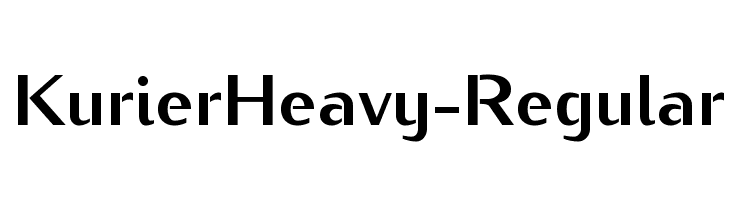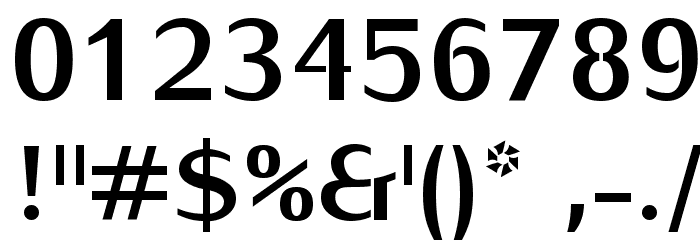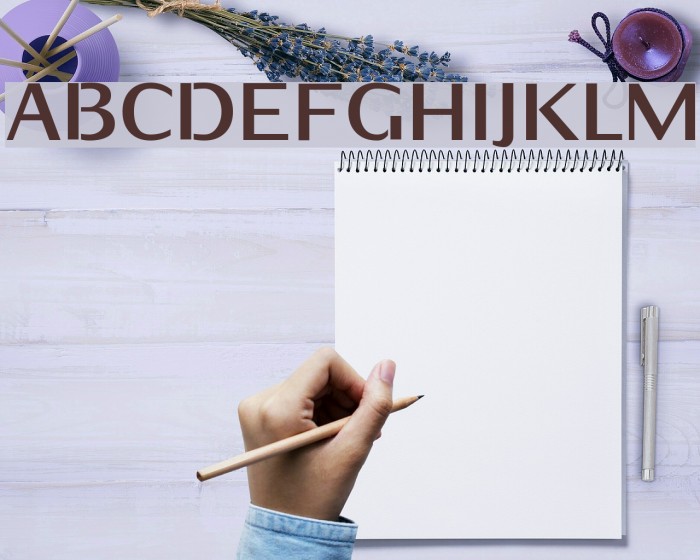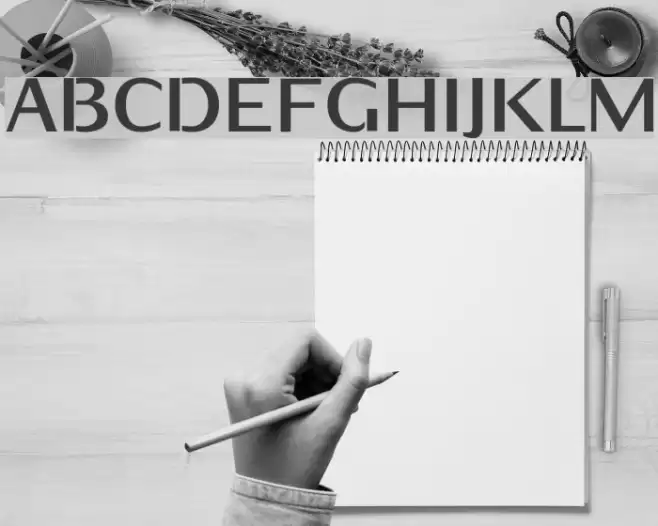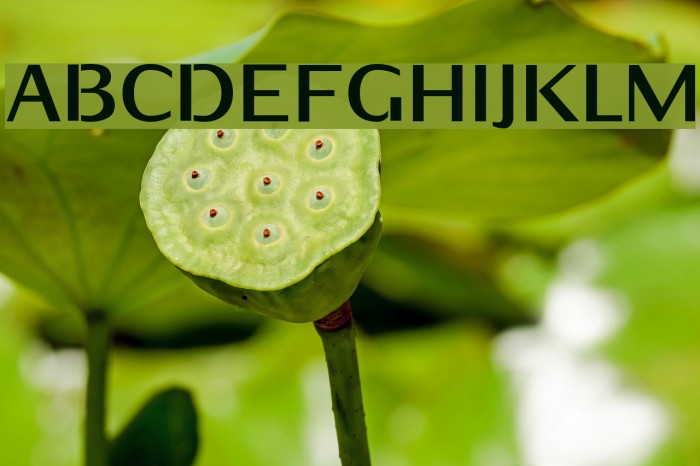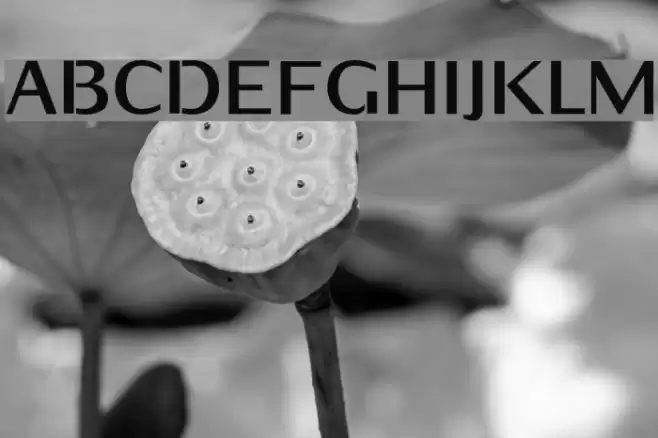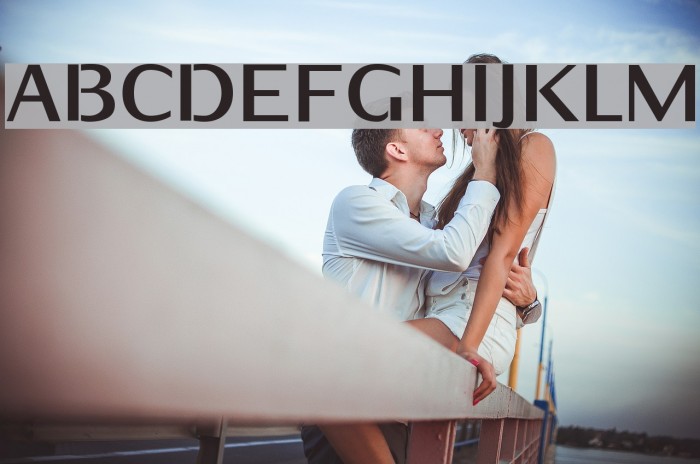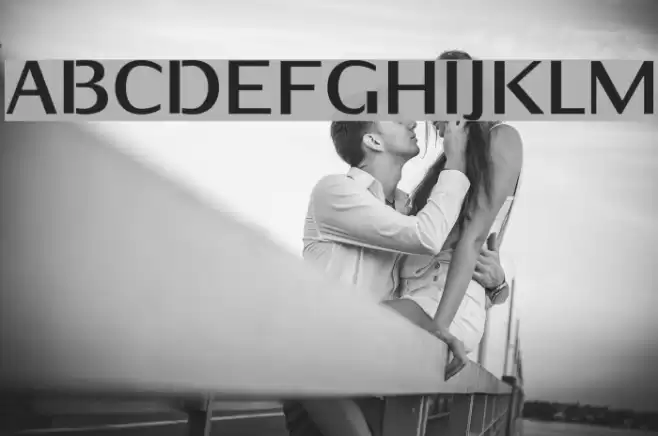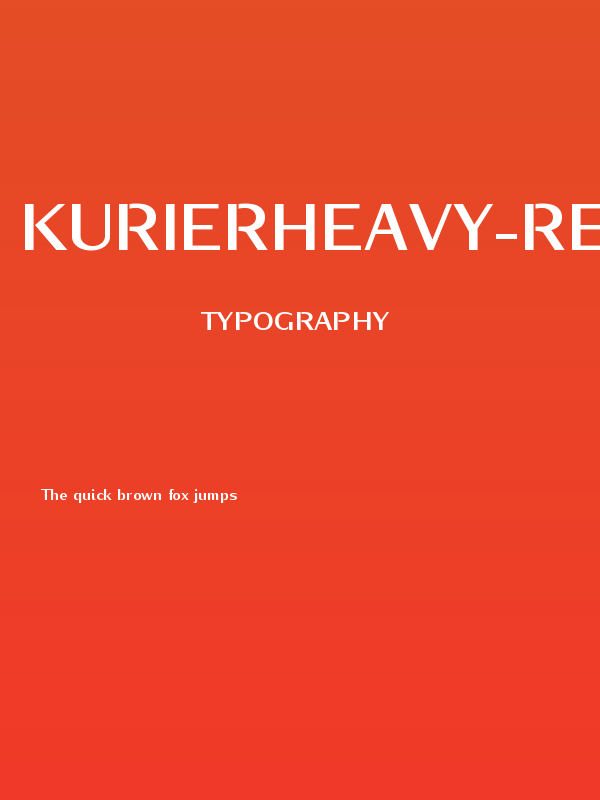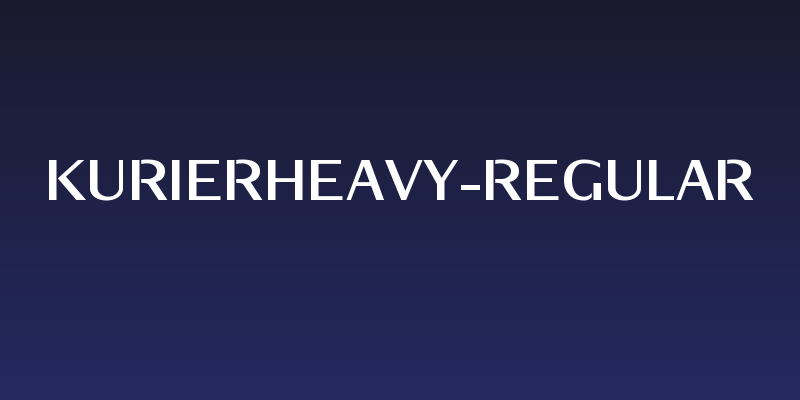
KurierHeavy-Regular Font
KurierHeavy-Regular Description
This font exhibits a bold and robust character with clean lines and a modern aesthetic. The uppercase letters are strong and assertive, while the lowercase letters maintain a consistent weight and structure. The numerals are clear and easily distinguishable, making them suitable for various applications. Special characters are well-defined, adding versatility to the font's usage. The overall design is balanced, with a slight geometric influence that enhances its contemporary feel. This font is ideal for projects that require a strong visual impact, such as headlines, branding, and advertising materials.